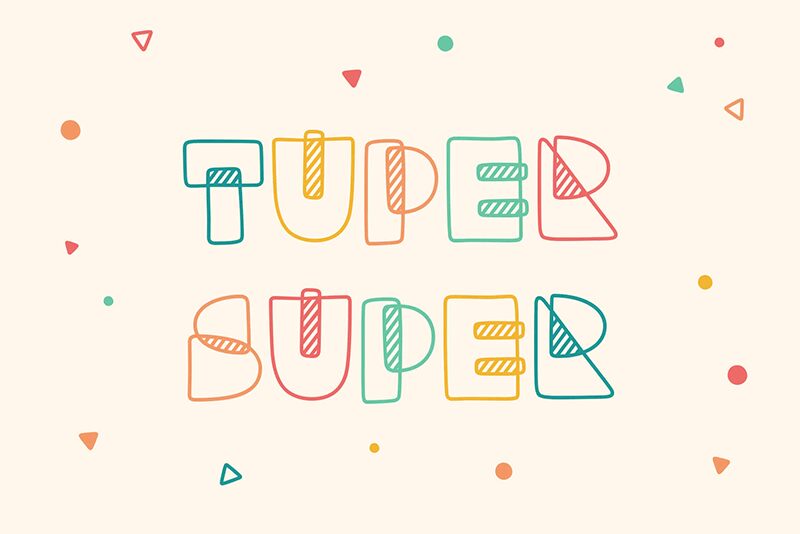
Tuper Super Regular
Tuper Super font is a decorative display typeface by Lauren Ashpole that features chunky bold letters. The alphabet is rounded, geometric overall, and consists of peculiar inner shapes and sharp unanticipated curves, which add a playful cartoonish vibe to the font. Additional fills decorate each letterform enhancing their visual engagement and gauging up the distinct casual feel this font preserves.
Tuper Super can help you communicate loud impactful messages through headers, titles, headings in magazines, newspapers, portfolios, business cards, CVs/resumes. It’s also suggested for branding projects like logos and label design as well as posters and packaging purposes in general. Use it to create stickers for outdoor or indoor use or even apparel when desiring a modern and youthful look.